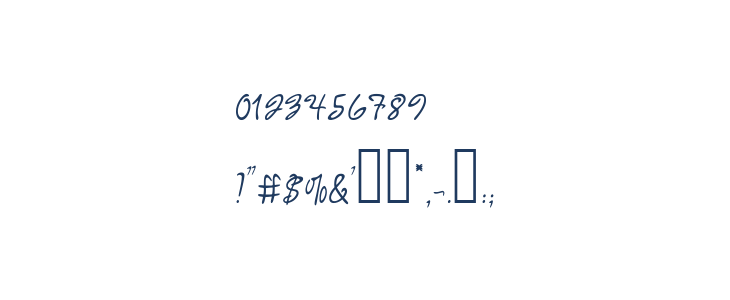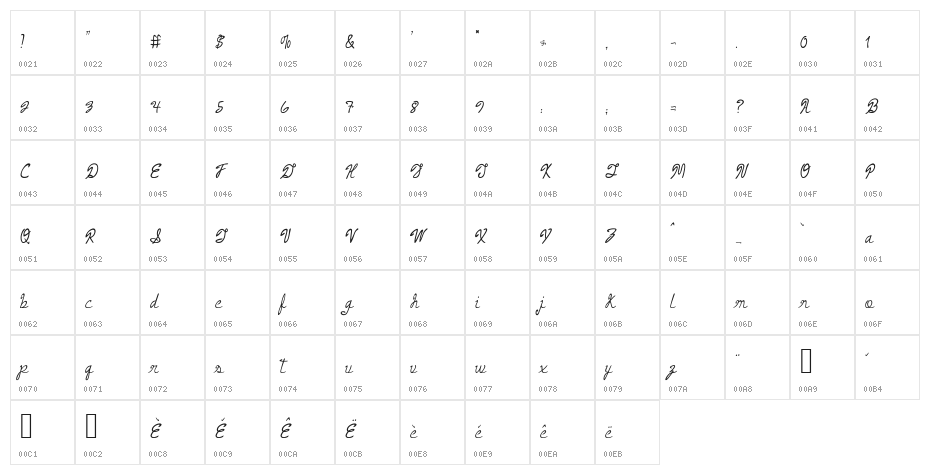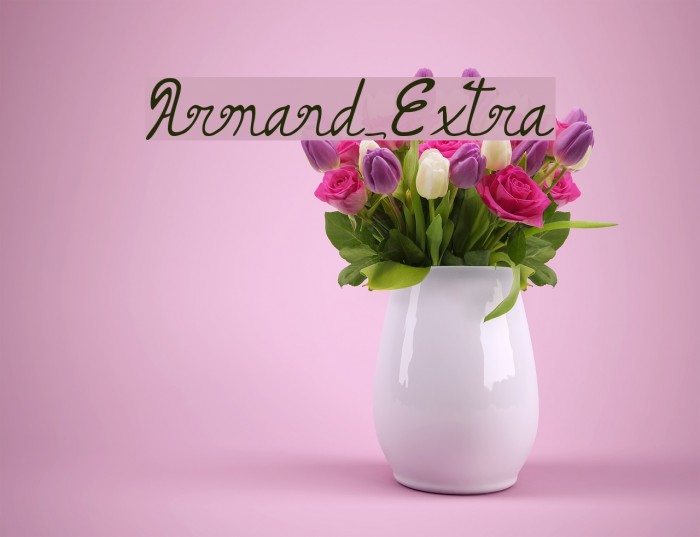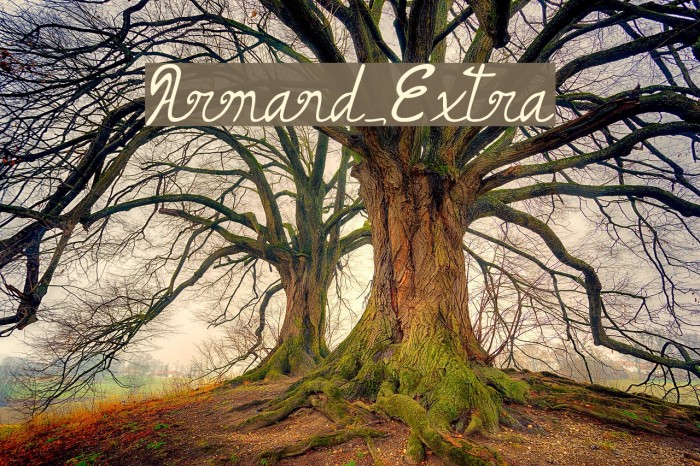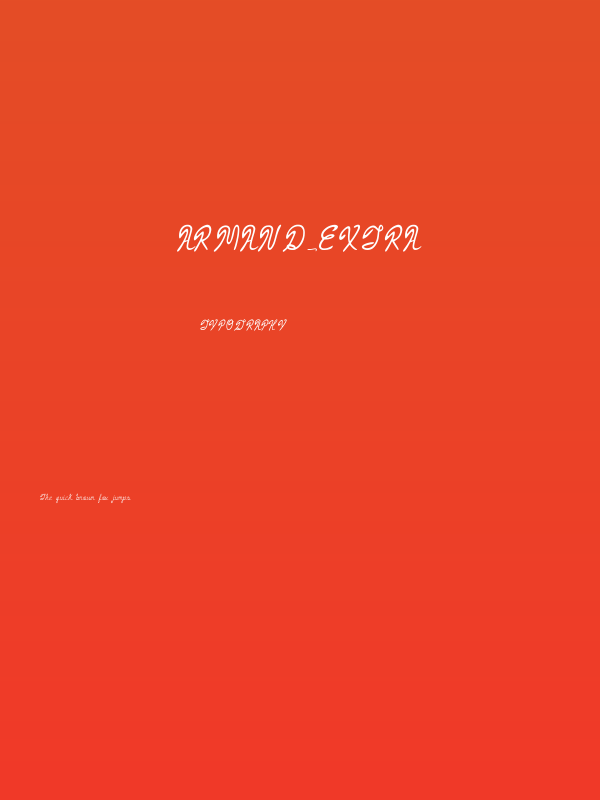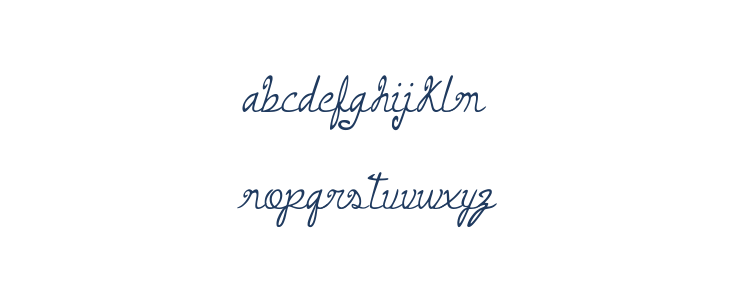
Armand_Extra Font
Armand_Extra Description
This elegant script font features a flowing, cursive style that mimics the fluidity of handwriting. The characters are connected, giving a seamless and sophisticated appearance. The uppercase letters are ornate, with flourishes that add a touch of grandeur, while the lowercase letters maintain a consistent rhythm and balance. The numerals and special characters are designed to complement the overall aesthetic, ensuring a cohesive look across all text. This font exudes a sense of elegance and refinement, making it ideal for formal invitations, branding, and decorative purposes.